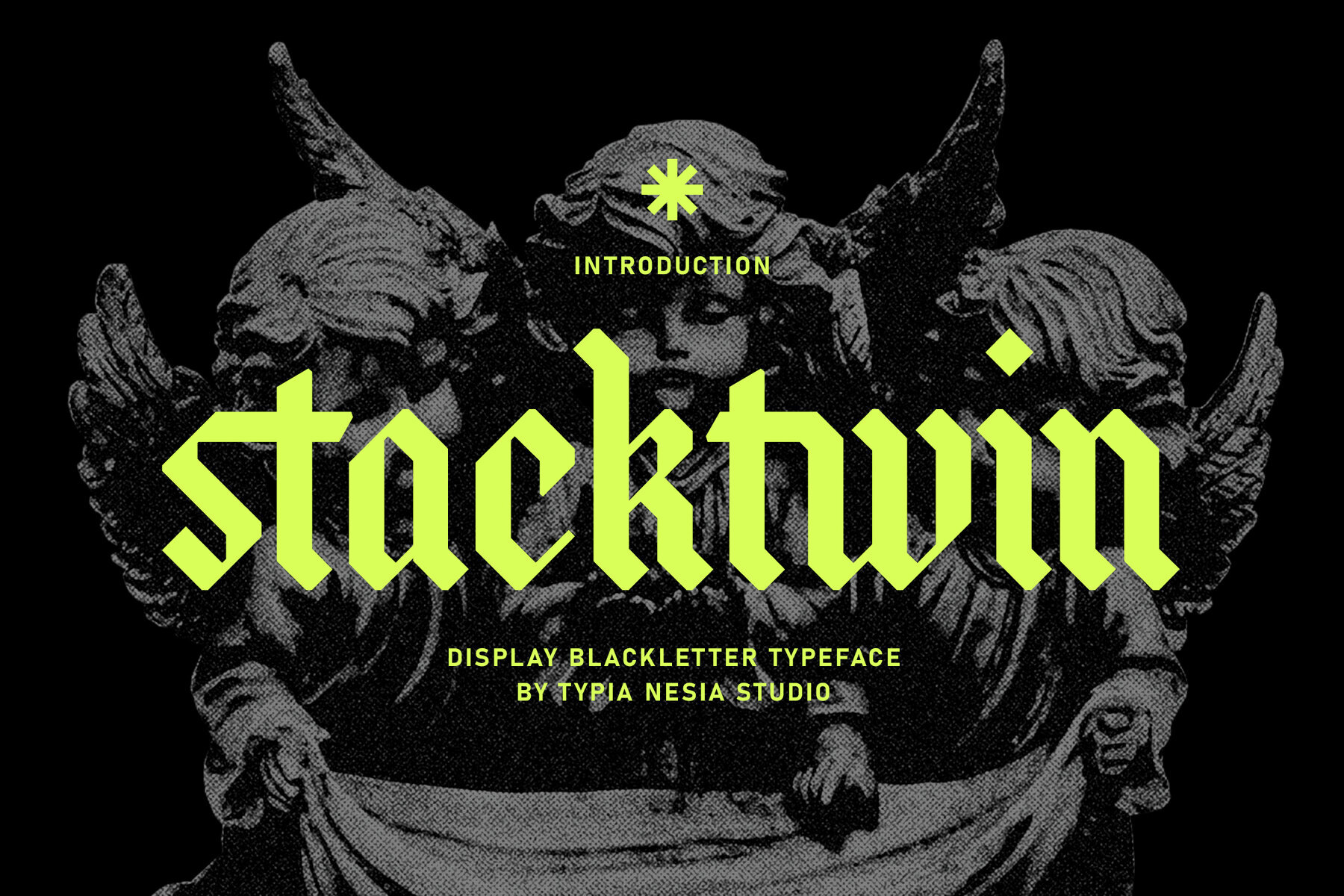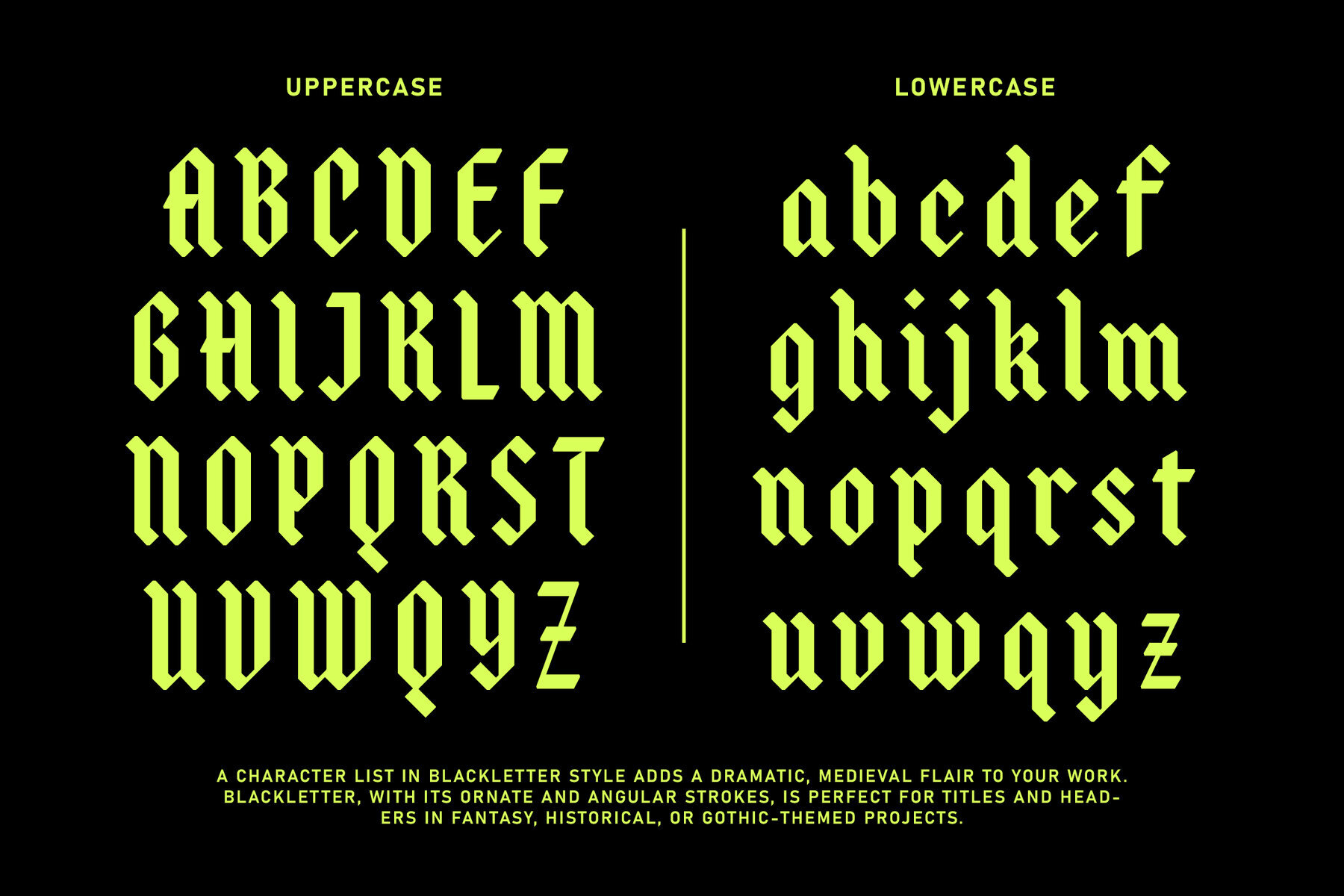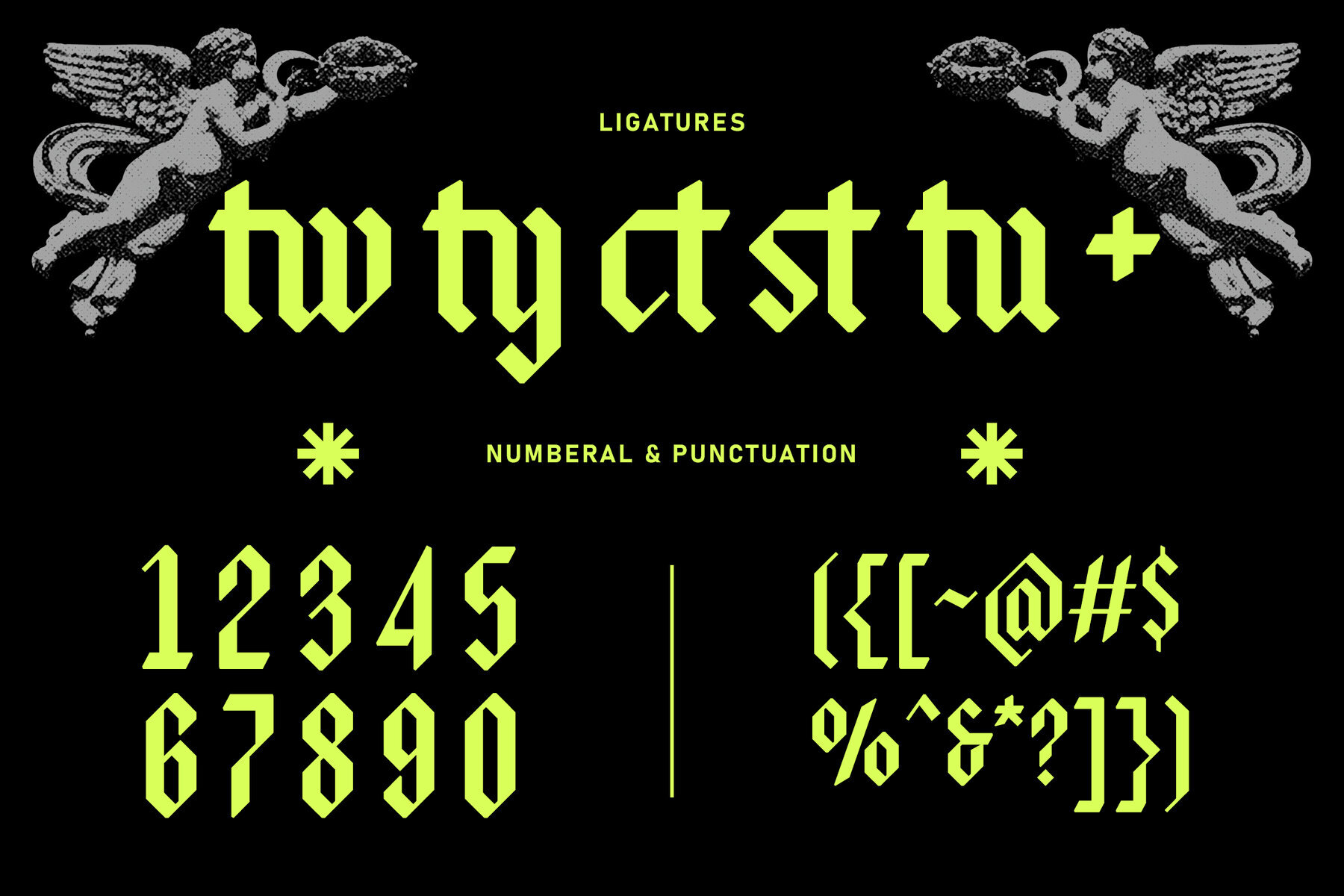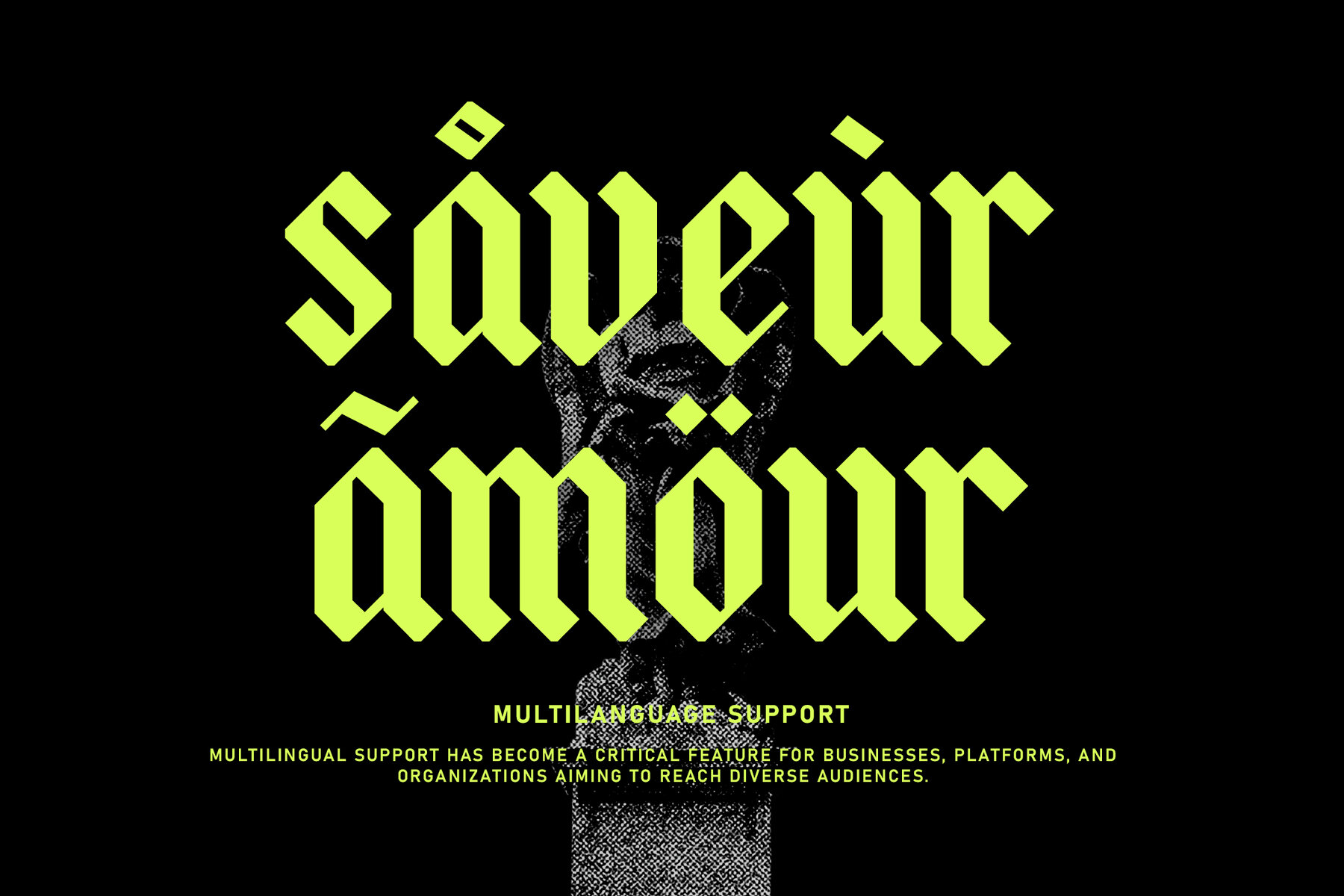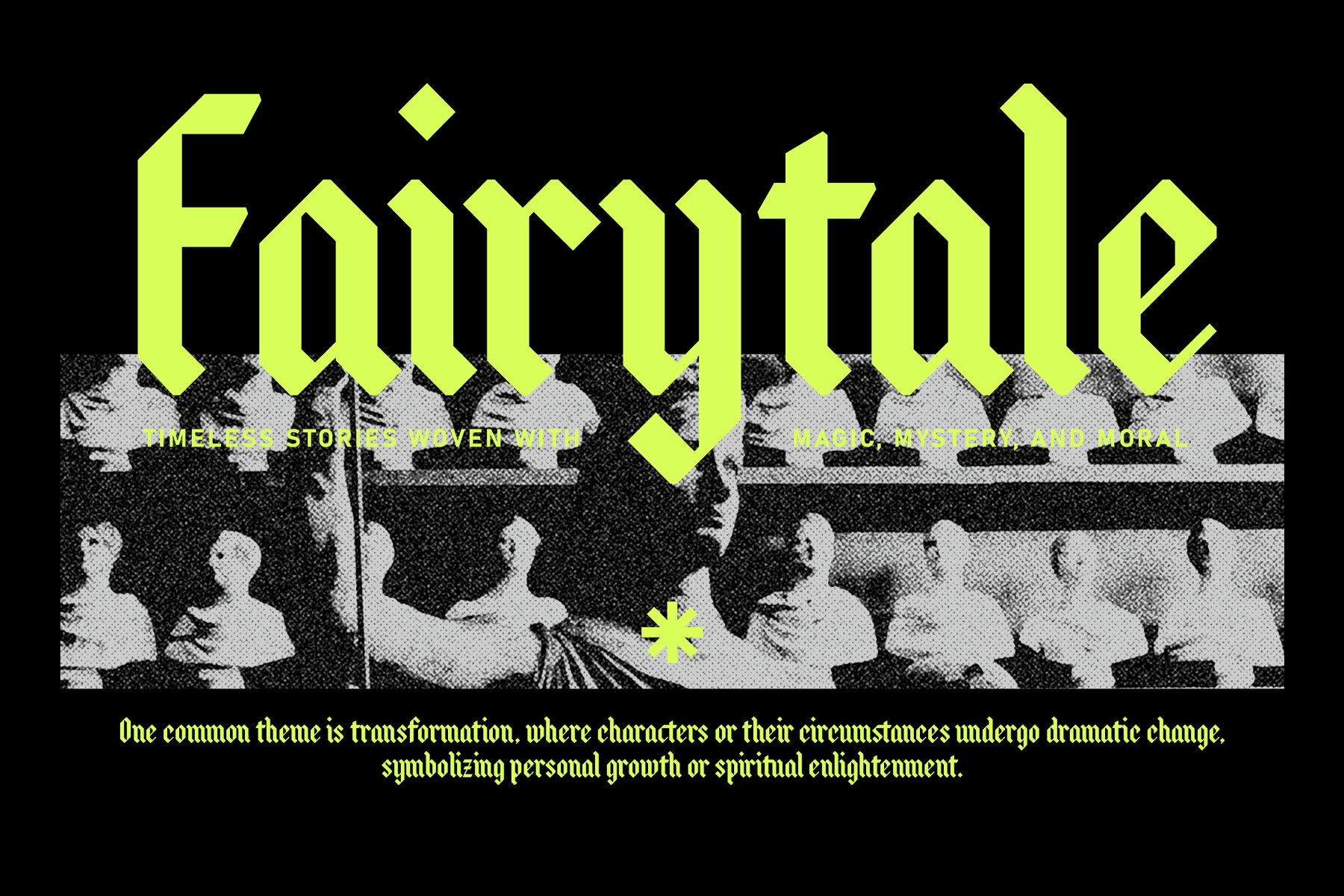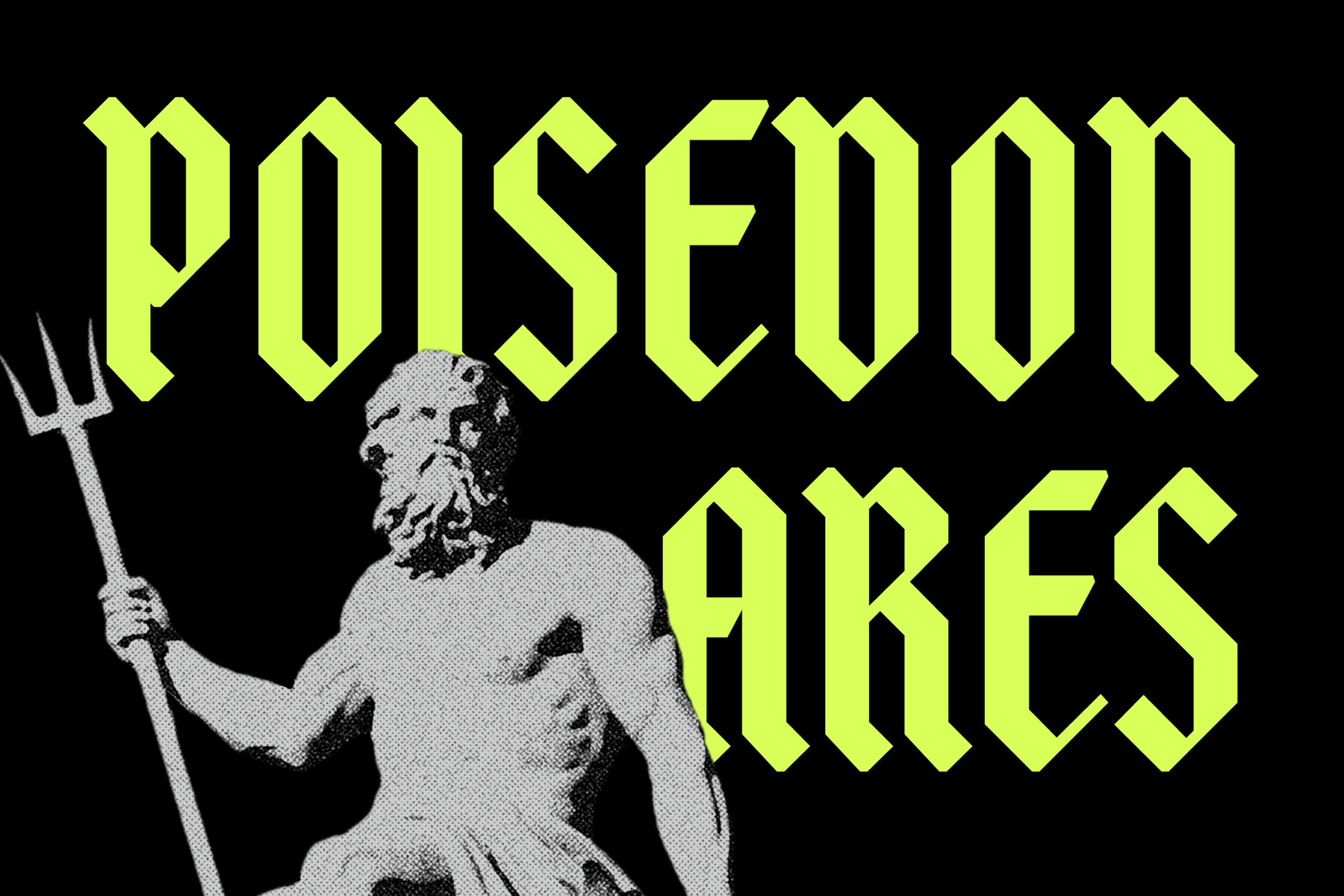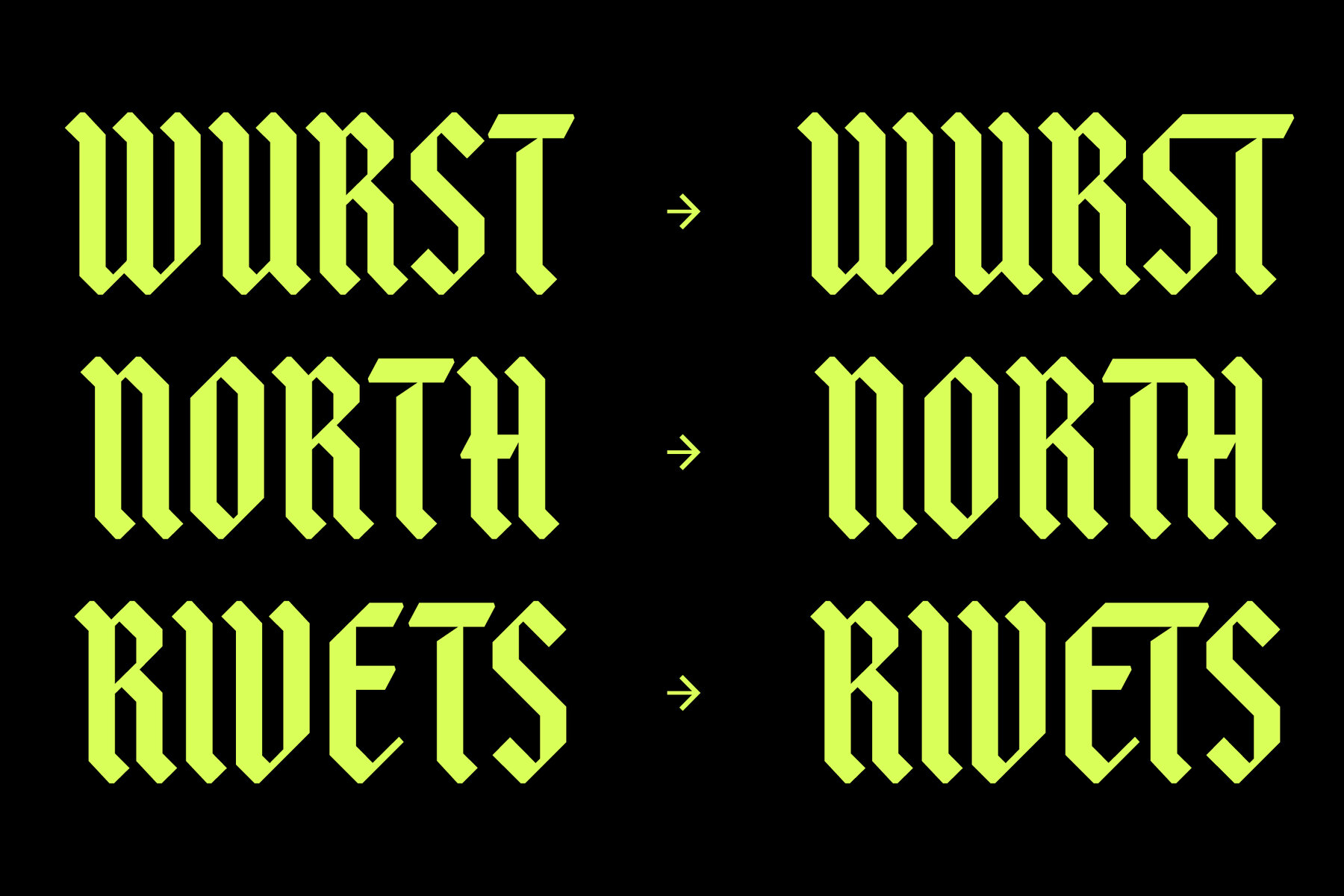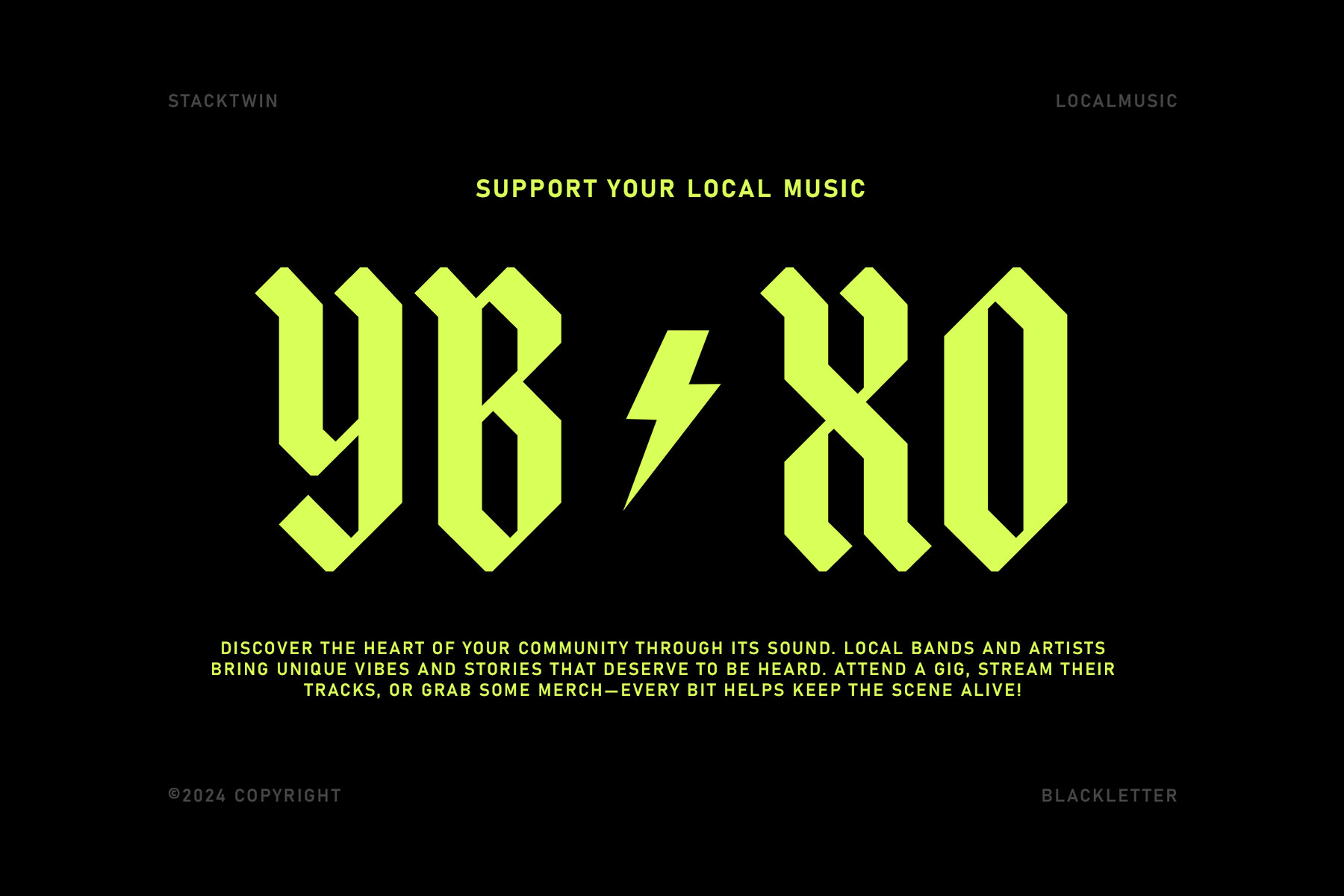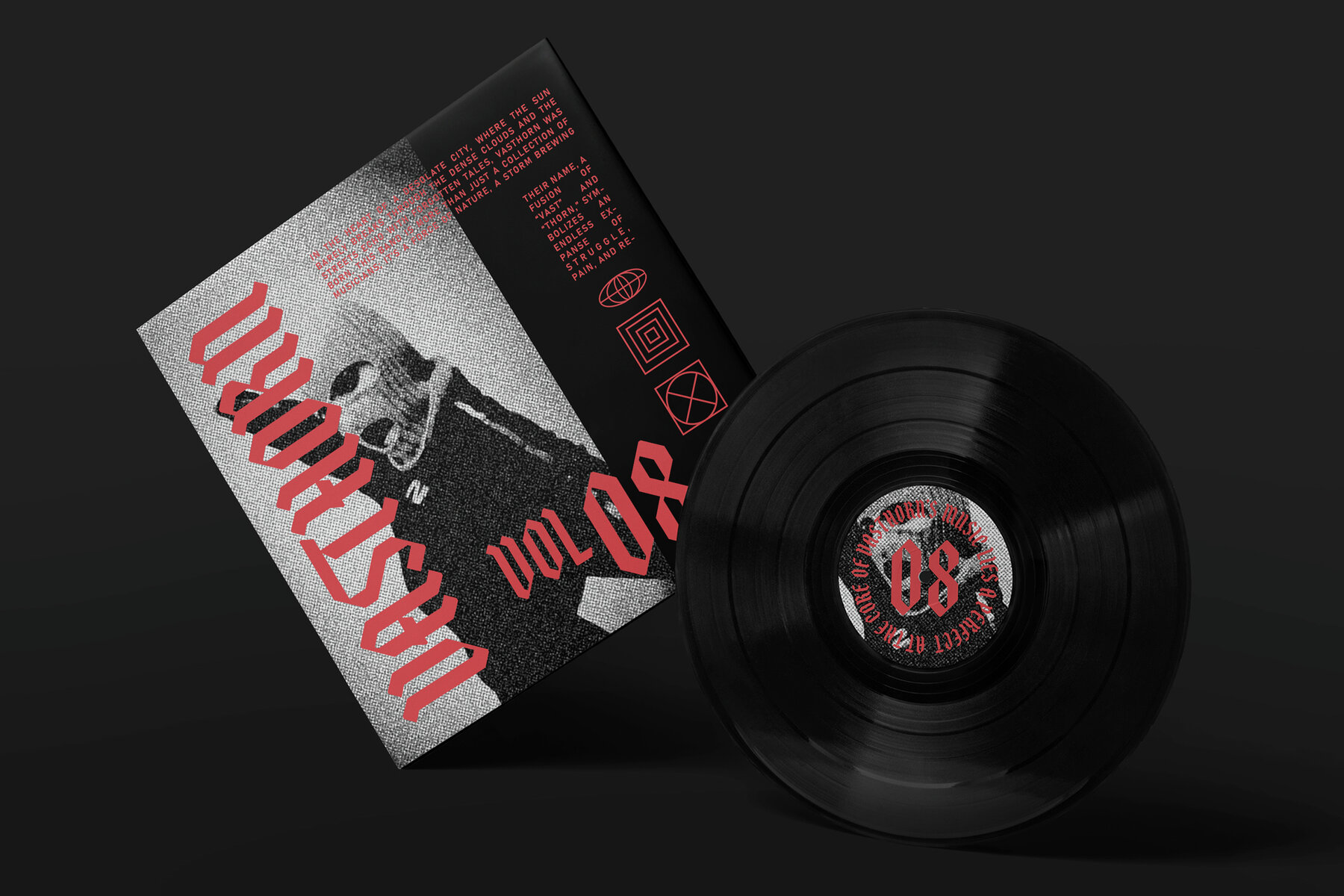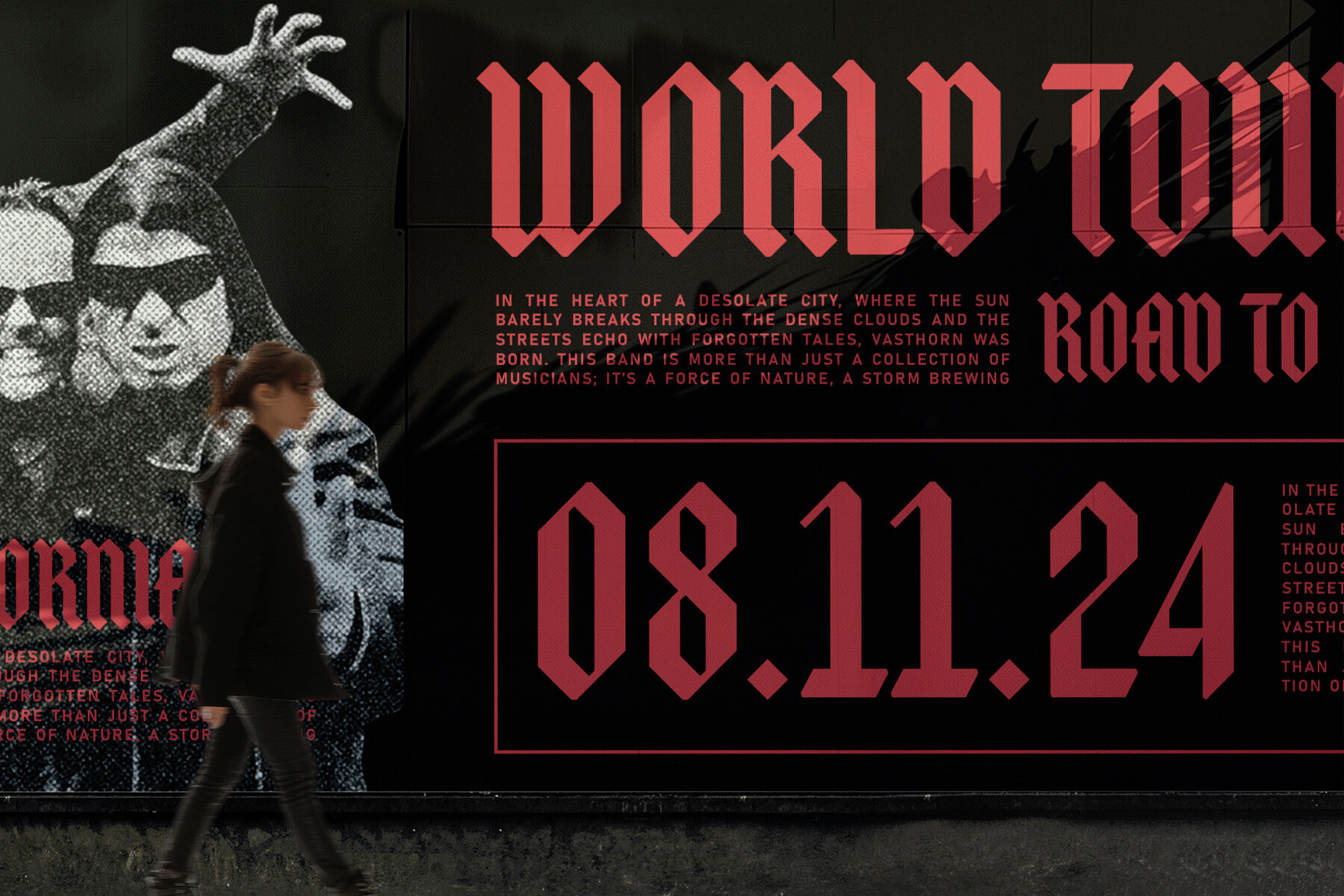
Stacktwin Font
Stacktwin Regular
Stackwin is a display blackletter typeface that combines gothic influences with a bold, modern aesthetic. Its striking design is perfect for creating impactful visuals in branding, logos, apparel designs, album covers, tattoos, packaging, posters, and event invitations. Its dramatic gothic style commands attention, making it ideal for headlines and editorial layouts requiring an impactful touch.
The typeface includes a comprehensive character set featuring uppercase and lowercase letters, punctuation, numerals, alternates, and ligatures. With multilingual support, Stackwin is versatile for global projects. The inclusion of ligatures and alternates provides a unique detail, enhancing your design's distinctiveness. Crafted with precision, the typeface offers impeccable detail and superior legibility, making Stackwin a standout choice for both print and digital media, catering to versatile and professional design needs.